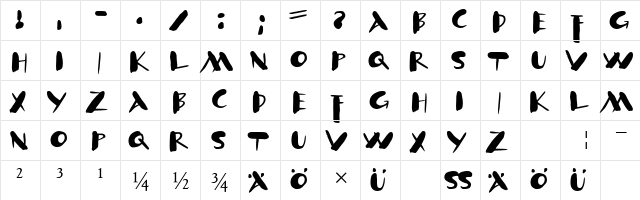
Klex Regular
Design Context for Klex Typeface
Klex is a composed and adaptable typeface that performs quietly and consistently across a wide range of design contexts.